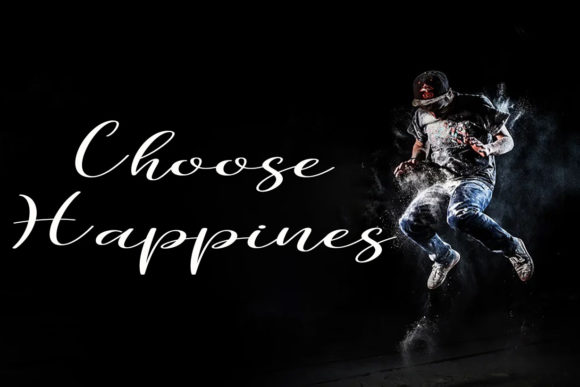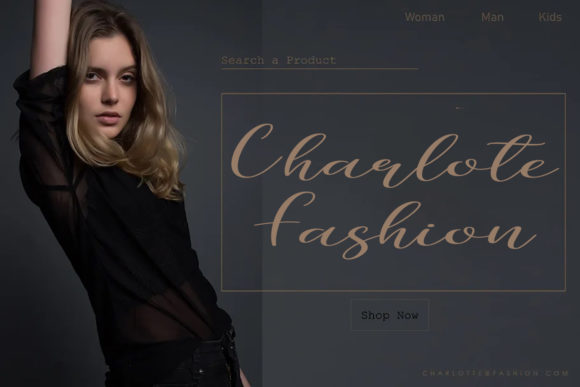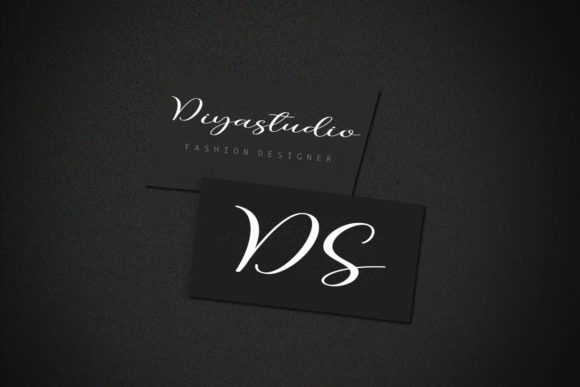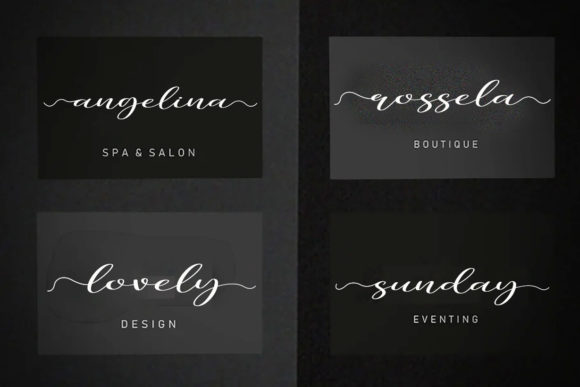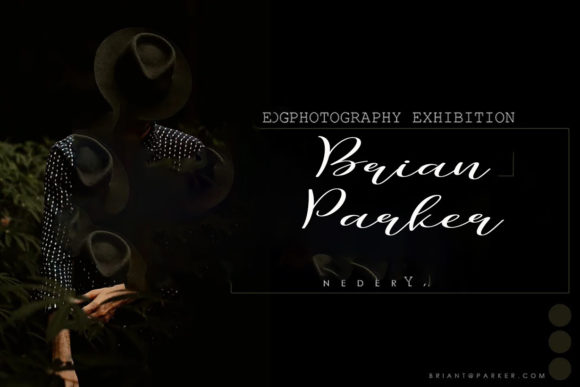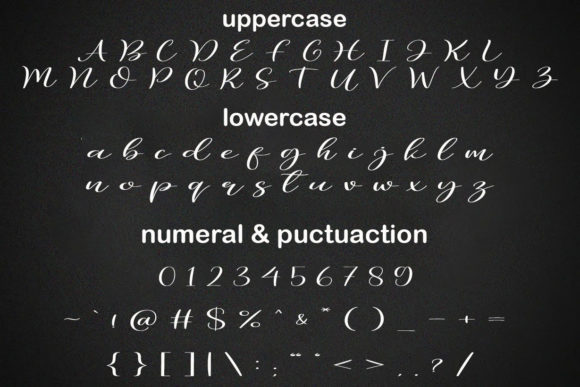
Introducing Adina Elodie Font: Elevate Your Designs with Elegance and Sophistication
In the world of design, fonts play a crucial role in conveying the tone and aesthetic of a project. Whether you’re working on packaging products, invitation cards, flyers, mockups, event posters, or any other design that requires a touch of elegance, the right font can make all the difference. This is where Adina Elodie Font comes into play – a free-flowing script font designed to add a high-quality vibe to your creations.
What Makes Adina Elodie Font Stand Out?
Adina Elodie Font is not just another script font; it’s a carefully crafted typeface that boasts a beautiful and balanced character. This balance is crucial as it allows the font to fit seamlessly into a large design pool, making it versatile for various applications. Whether you’re aiming for a sophisticated look or a more casual, friendly feel, Adina Elodie can adapt to meet your design needs.
Key Features of Adina Elodie Font
• Free-Flowing Script: Adina Elodie offers a fluid, natural look that is perfect for designs that require a personal touch.
• PUA Encoded: Being PUA (Private Use Area) encoded, this font allows easy access to all glyphs and swashes. This feature is particularly useful for designers who want to experiment with different styles and variations without the hassle of complicated font editing.
• High-Quality Vibes: The font is designed to bring a touch of elegance and sophistication to any design project, making it ideal for high-end branding, luxury packaging, and more.
• Versatility: From packaging products and invitation cards to flyers, mockups, and event posters, Adina Elodie Font can be used across a wide range of design projects.
For designers and crafters, finding the right font can often be a challenge. Adina Elodie Font offers several benefits that make it an attractive choice:
• Time-Saving: With its comprehensive set of glyphs and swashes, designers can save time that would otherwise be spent on font editing or searching for additional design elements.
• Consistency: The balanced and elegant look of Adina Elodie ensures consistency across various design projects, helping to build a strong brand identity.
• Ease of Use: The PUA encoding makes it easy for anyone, regardless of their design experience, to use and enjoy the font’s full potential.
How to Make the Most of Adina Elodie Font
To truly leverage the potential of Adina Elodie Font, consider the following tips:
• Experiment with Swashes: Don’t be afraid to play around with the glyphs and swashes to find the perfect combination that suits your design.
• Mix and Match: Combine Adina Elodie with other fonts to create a unique look. Its elegant script can complement a variety of typefaces.
• Consider Your Audience: Tailor your use of the font to your target audience. For example, luxury brands might use it more sparingly for packaging and branding, while event planners might use it for invitations and promotional materials.
Adina Elodie Font is a versatile, elegant, and sophisticated script font that can elevate any design project. Its free-flowing script, beautiful balance, and PUA encoding make it an excellent choice for designers and crafters looking to add a touch of high-quality elegance to their work. Whether you’re working on a luxury brand’s packaging or a friend’s wedding invitation, Adina Elodie Font is sure to impress.